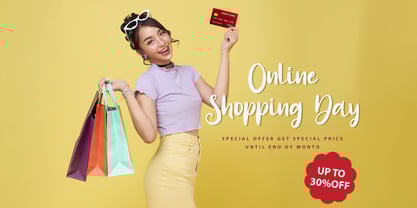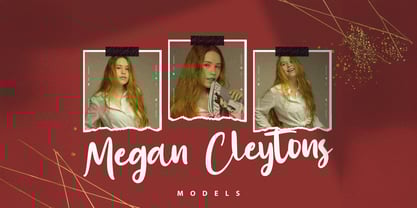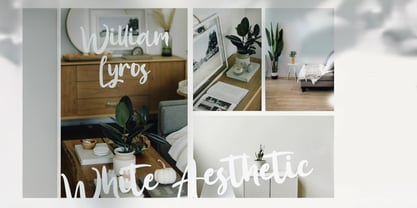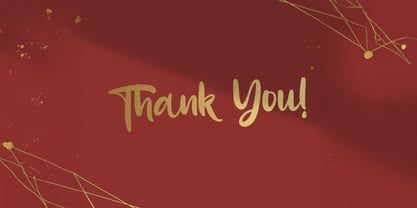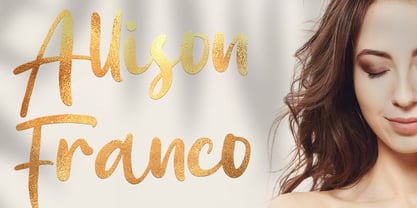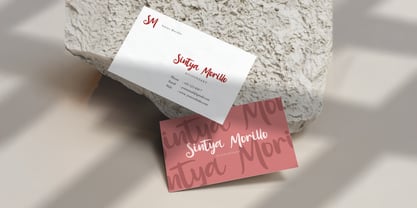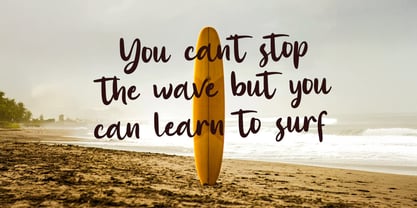
Allison Franco
La famille de polices Allison Franco a été conçue par Virgiawan Listanto et publiée par Stringlabs Creative Studio. Allison Franco contient 1 styles.
Allison Franco is a stylish handwritten font that combines elegance with a personal, contemporary feel. Its flowing strokes and smooth curves create a natural rhythm, perfect for designs that need both beauty and authenticity. Whether you're crafting a signature logo, romantic invitation, or social media post, Allison Franco adds a touch of charm and sophistication to every letter.